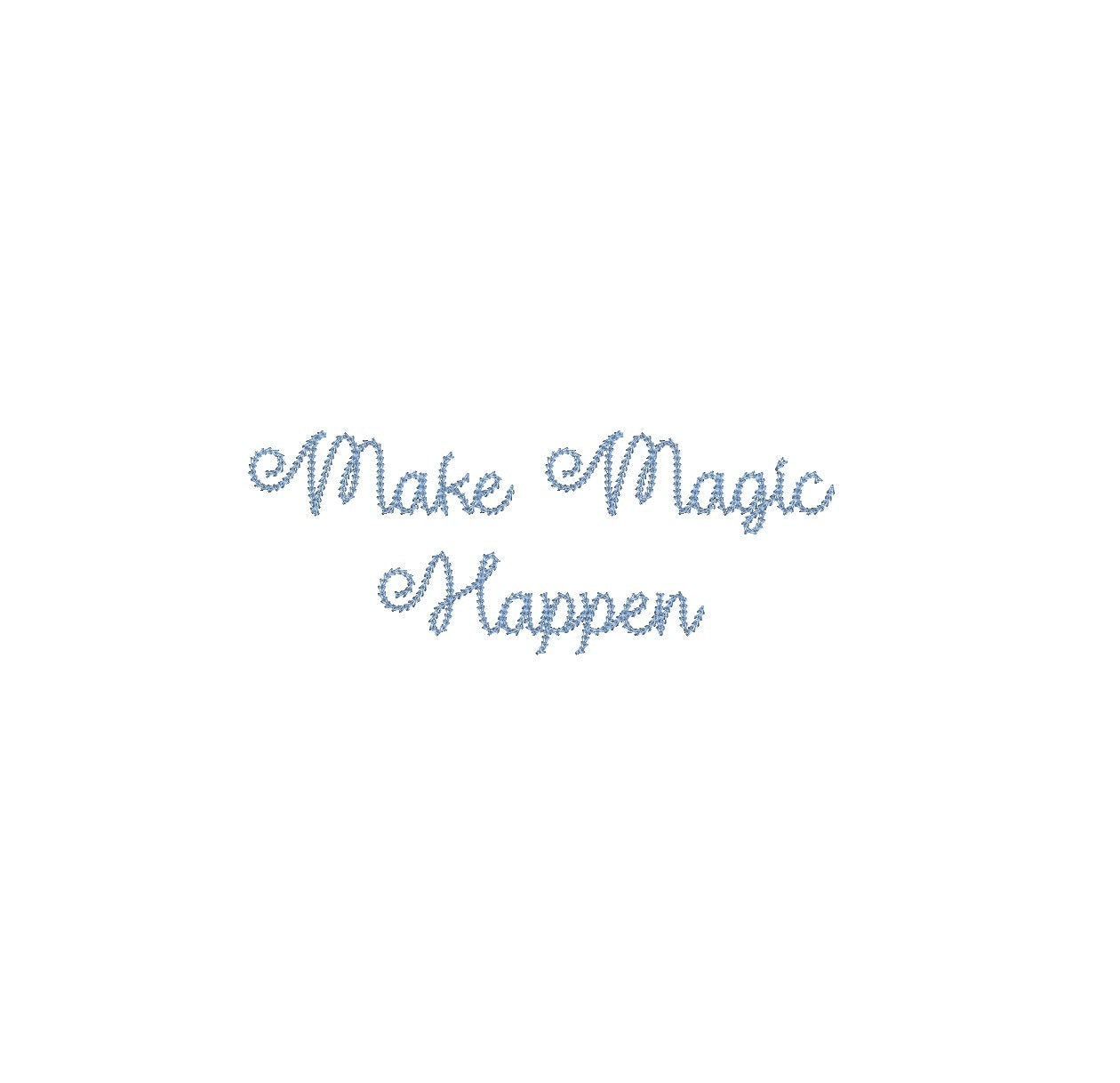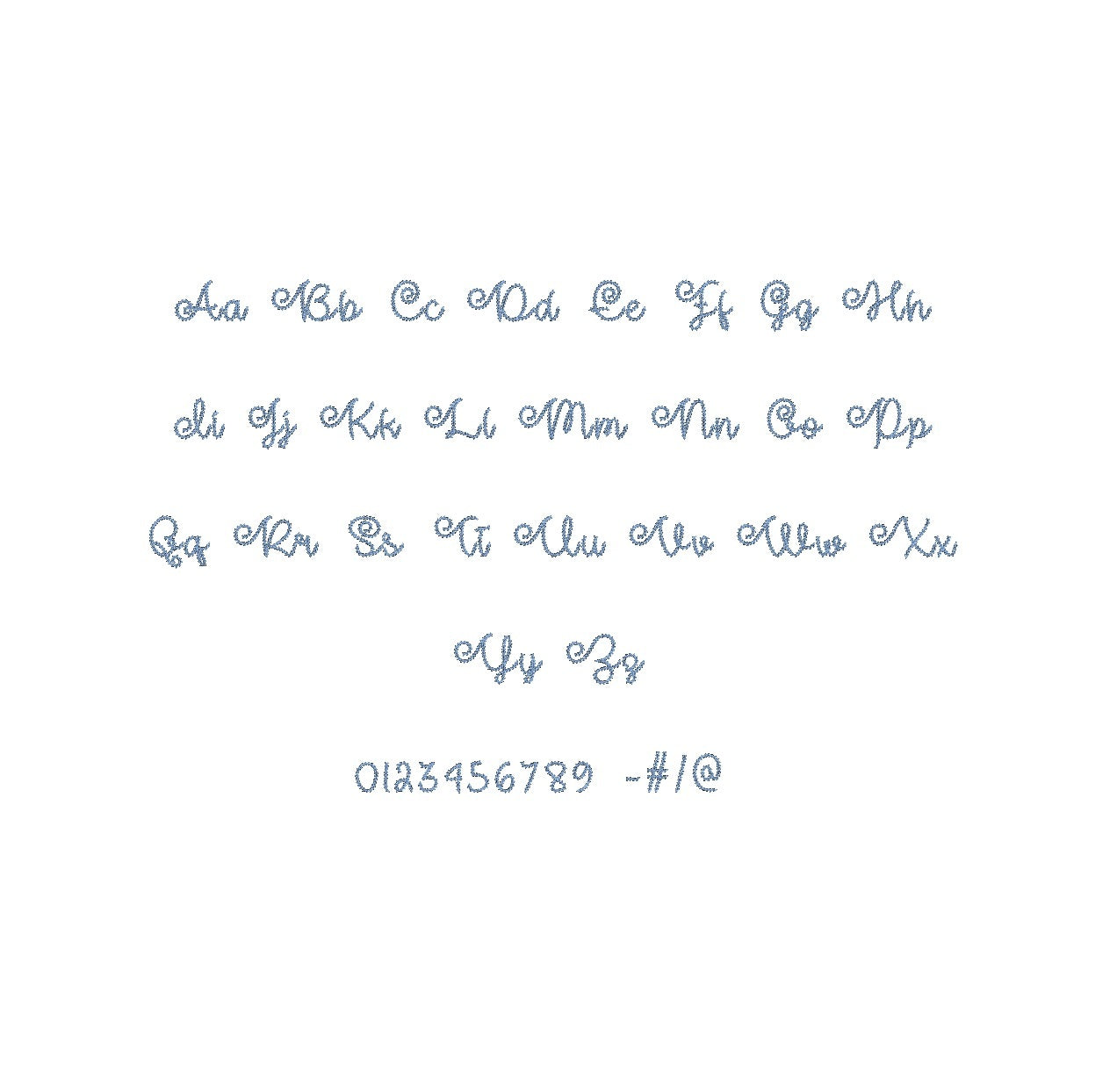
Unleash creativity with the Make Magic Happen Chain Stitch ESA font, tailor-made for Wilcom Studio e4.5.6 and Hatch 3 and newer versions. Elevate your designs with enchanting chain stitch details, adding a touch of mystique to your embroidery projects. Effortlessly craft captivating monograms, labels, and embellishments. Seamlessly integrated for hassle-free use, this font revolutionizes embroidery. Download Make Magic Happen Chain Stitch ESA font now and embark on a journey of limitless artistic possibilities. Elevate your embroidery to magical heights and watch your creations come to life with this exceptional font.